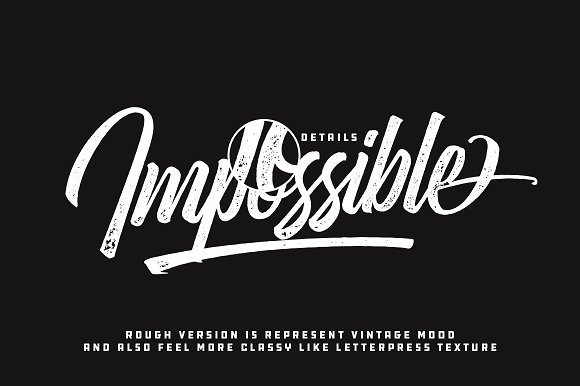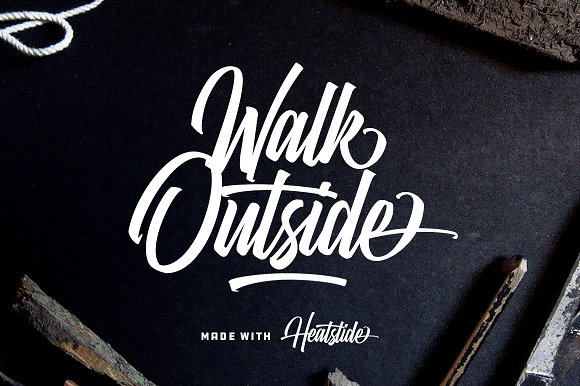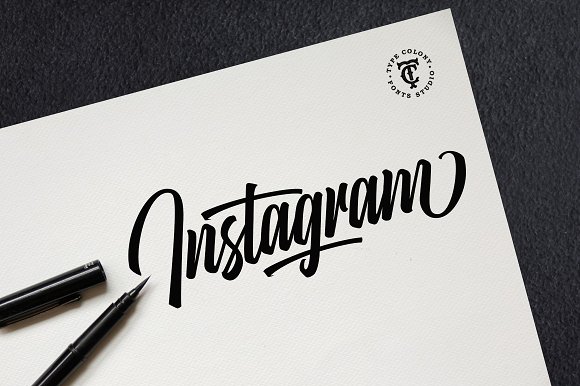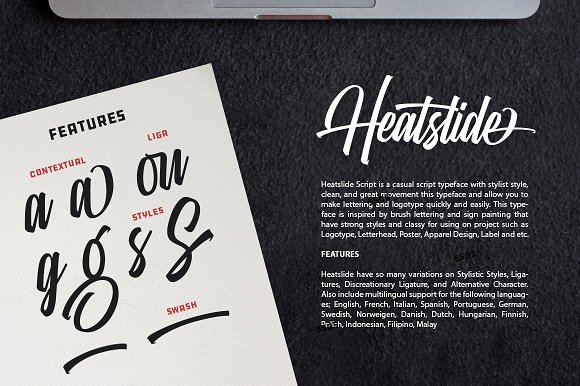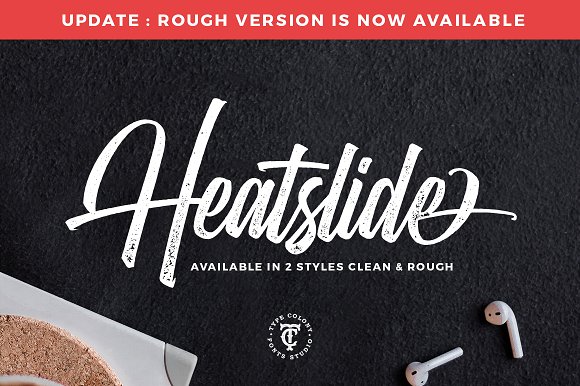
Heatslide Font
Heatslide Script is a casual script typeface with stylist style, clean, and great movement this typeface and allow you to make lettering and logotype quickly and easily. This typeface is inspired by brush lettering, street art, and urban culture that feel so wild, strong and classy. This typeface is suitable to use for any project such as Logotype, Letterhead, Poster, Apparel Design, Label and etc.